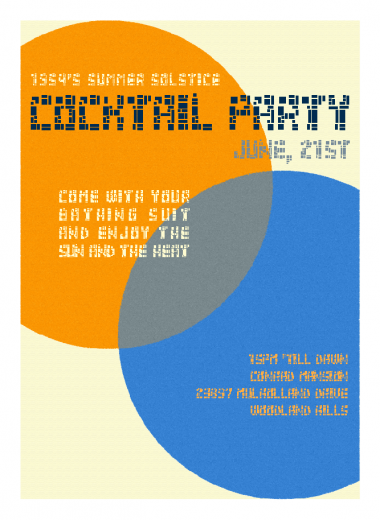
IR Franklyn
Interesting - very stoned :)
It could look like this :
very beat :)
When I think about this font, pop up pell mell pictures of Hitchcock's movies (
North By Northwest
), stone chimneys, Frank Lloyd Wright works... In short, it's not very definite. Maybe I'll rename it IR Franklyn ?